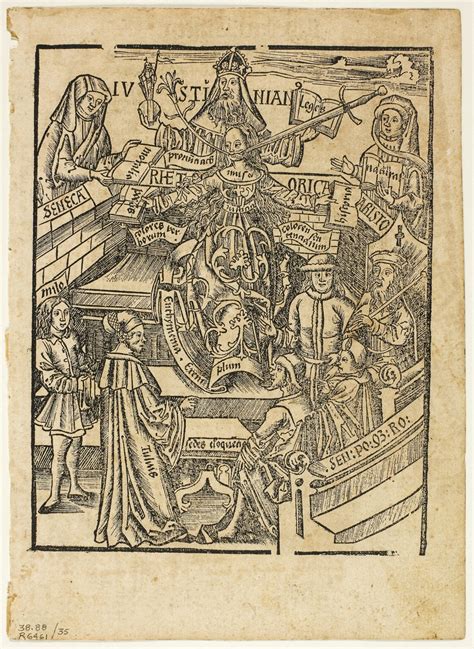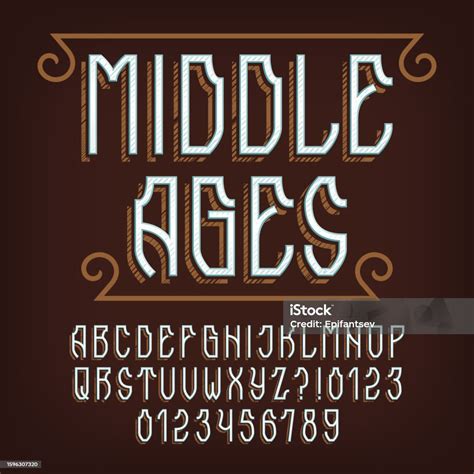
In the realm of typography, few styles evoke the mystique and charm of a bygone era quite like the Middle Ages Font. These fonts, inspired by the calligraphic and manuscript traditions of the medieval period, bring a sense of history and elegance to modern design. Whether you're a graphic designer, a historian, or simply someone with an appreciation for the aesthetics of the past, understanding and utilizing Middle Ages Fonts can add a unique touch to your projects.
Understanding Middle Ages Fonts
Middle Ages Fonts are characterized by their intricate details and ornate designs, reflecting the meticulous craftsmanship of medieval scribes. These fonts often feature:
- Elaborate serifs and flourishes
- Calligraphic strokes
- A sense of antiquity and tradition
These fonts are not just about aesthetics; they also carry a historical significance. They remind us of the era when books were handwritten, and each letter was a work of art. The use of Middle Ages Fonts can transport your audience to a time of knights, castles, and illuminated manuscripts.
Types of Middle Ages Fonts
There are several types of Middle Ages Fonts, each with its unique characteristics. Some of the most popular ones include:
| Font Type | Characteristics | Usage |
| Blackletter | Thick, bold strokes with sharp angles | Ideal for headings, logos, and formal documents |
| Gothic | Elegant, flowing lines with intricate details | Perfect for invitations, certificates, and decorative text |
| Uncial | Rounded, uppercase letters with a modern touch | Great for titles, headings, and branding |
Each of these font types has its own charm and can be used to create a variety of designs. For example, Blackletter fonts are often used in logos and headings due to their bold and striking appearance. Gothic fonts, with their elegant and flowing lines, are perfect for invitations and certificates. Uncial fonts, on the other hand, offer a modern twist on medieval calligraphy, making them ideal for titles and branding.
Using Middle Ages Fonts in Design
Incorporating Middle Ages Fonts into your design projects can add a touch of elegance and historical depth. Here are some tips on how to effectively use these fonts:
- Choose the Right Font for the Right Purpose: Different Middle Ages Fonts are suited for different types of projects. For example, Blackletter fonts are great for headings and logos, while Gothic fonts are perfect for invitations and certificates.
- Pair with Complementary Fonts: Middle Ages Fonts can be paired with modern fonts to create a balanced design. For example, you can use a Blackletter font for the heading and a sans-serif font for the body text.
- Use Sparingly: Middle Ages Fonts are best used in moderation. Overusing them can make your design look cluttered and overwhelming. Use them for headings, logos, and decorative text to create a focal point.
- Consider Readability: While Middle Ages Fonts are beautiful, they can sometimes be difficult to read, especially in smaller sizes. Make sure to use them in a way that enhances readability.
By following these tips, you can effectively incorporate Middle Ages Fonts into your design projects and create a unique and elegant look.
๐ Note: When using Middle Ages Fonts, it's important to consider the context of your design. These fonts are best suited for projects that have a historical or elegant theme. Using them in modern, minimalist designs may not be as effective.
Middle Ages Fonts in Digital Media
In the digital age, Middle Ages Fonts are not just limited to print media. They can be used in a variety of digital projects, including websites, social media graphics, and digital publications. Here are some ways to incorporate Middle Ages Fonts into your digital media:
- Web Design: Use Middle Ages Fonts for headings, logos, and decorative text on your website. They can add a touch of elegance and historical depth to your design.
- Social Media Graphics: Create eye-catching graphics for social media using Middle Ages Fonts. They can help your posts stand out and attract attention.
- Digital Publications: Use Middle Ages Fonts in e-books, digital magazines, and online articles to create a unique and elegant look.
When using Middle Ages Fonts in digital media, it's important to ensure that they are web-safe and compatible with different devices and browsers. This will help ensure that your design looks great on all platforms.
๐ Note: When using Middle Ages Fonts in digital media, it's important to consider the file size. Some of these fonts can be quite large, which can affect the loading speed of your website or digital publication.
Middle Ages Fonts in Branding
Middle Ages Fonts can also be used in branding to create a unique and memorable identity. Here are some ways to incorporate Middle Ages Fonts into your branding:
- Logos: Use Middle Ages Fonts to create a logo that stands out and reflects the historical or elegant theme of your brand.